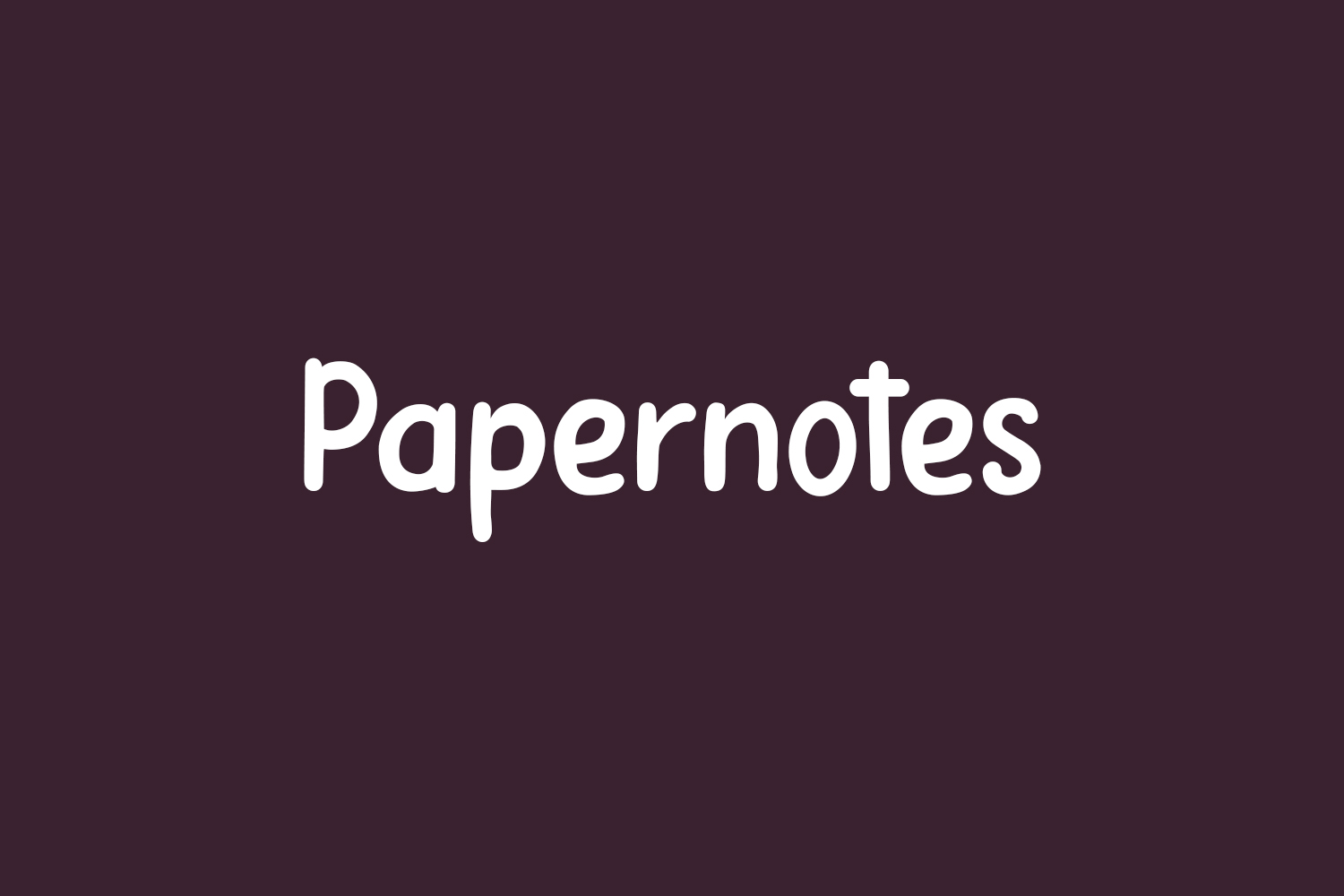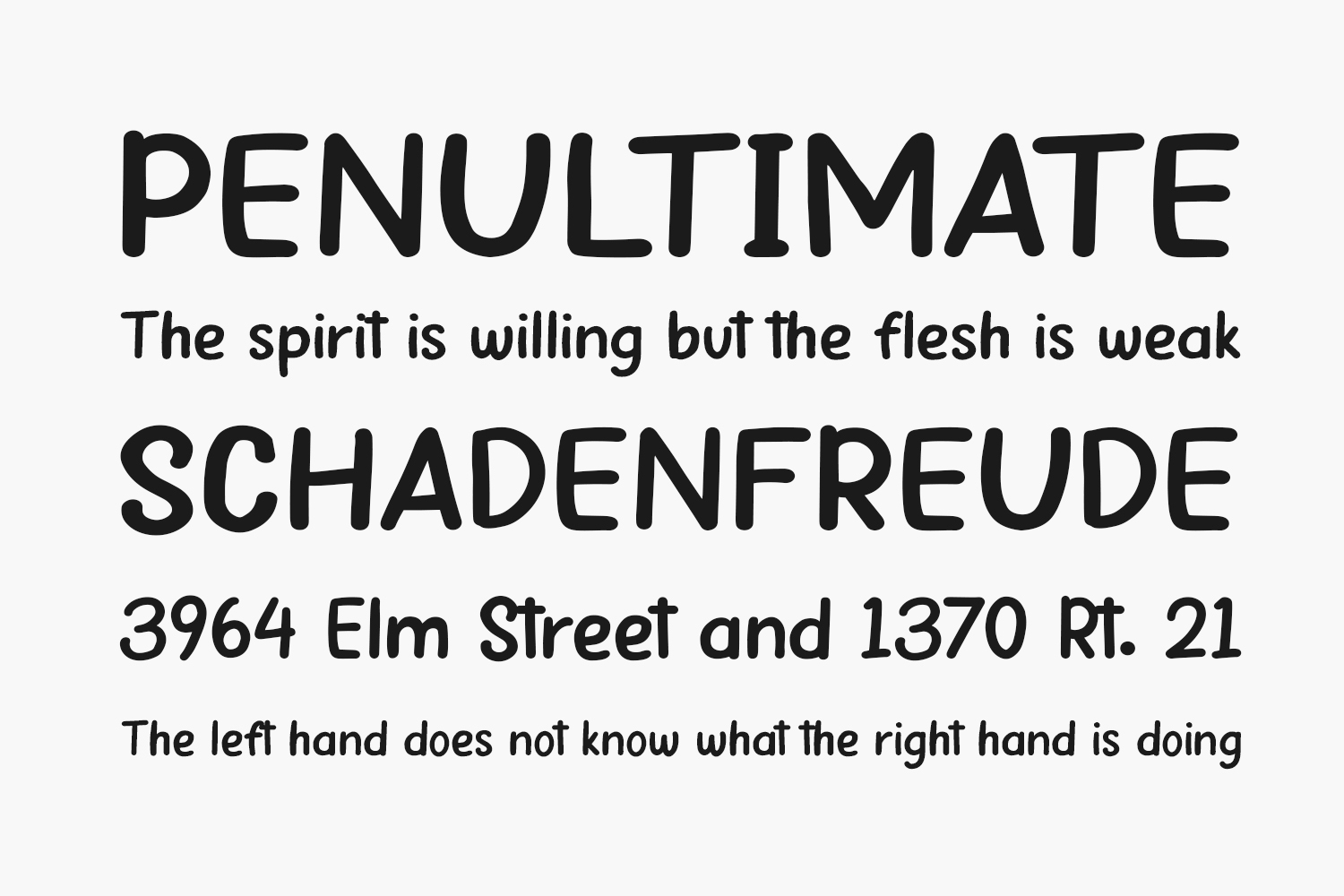
Papernotes Free Font Family features beautifully handcrafted characters! This sweet handwritten font will take your projects to the next level. Papernotes Free Font Family was designed by Letterflow Studio and is free for personal use only. Please purchase the full version for commercial use.
Papernotes Regular The quick brown fox jumps over the lazy dog
Papernotes Bold The quick brown fox jumps over the lazy dog
Papernotes Sketch The quick brown fox jumps over the lazy dog